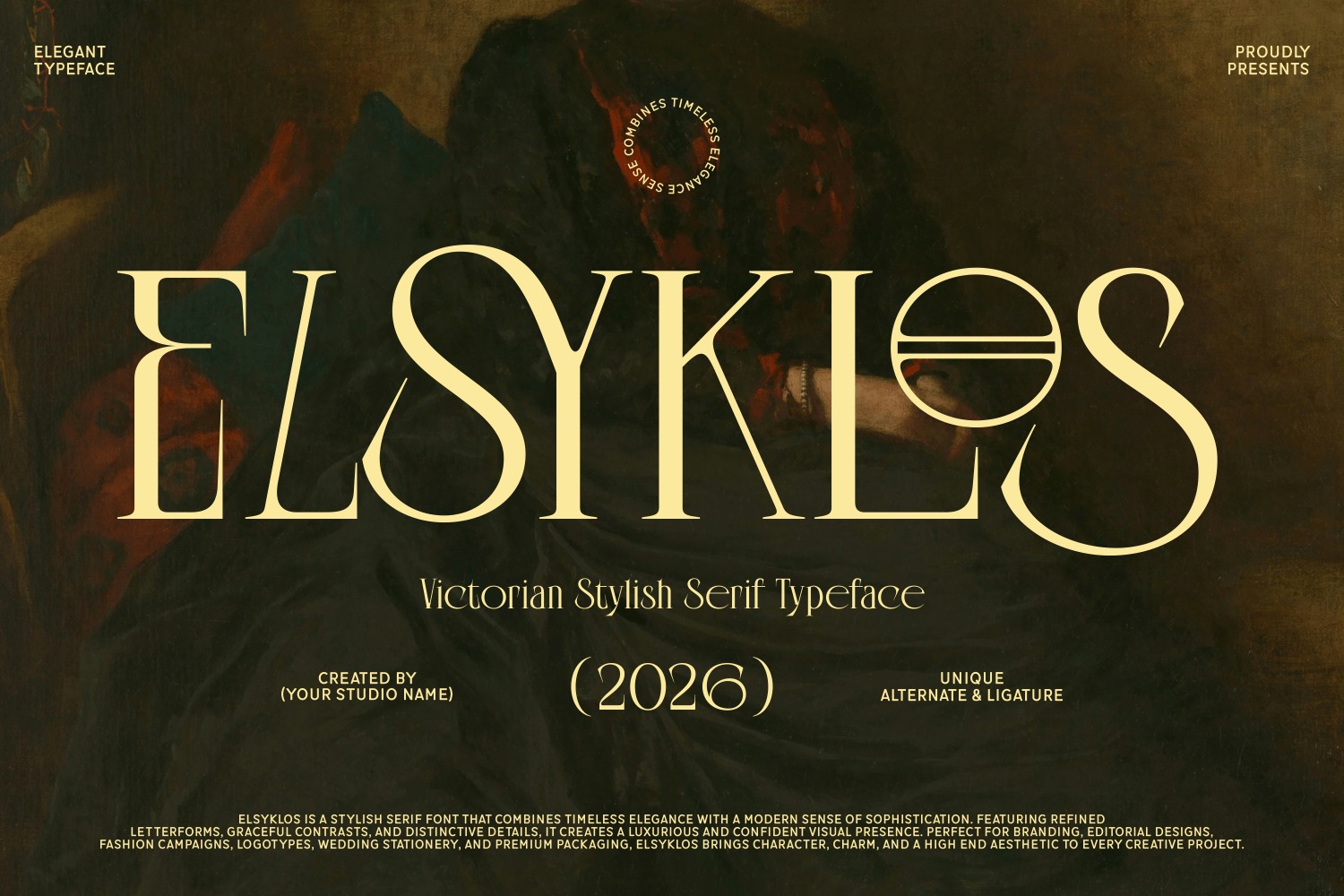
Elsyklos – Refined Serif Font
Elsyklos – Refined Serif Font is a versatile font designed to adapt beautifully across different design styles, offering dependable readability and balance. Elsyklos is a decorative display serif with a formal Victorian mood and strong contrast between thin hairlines and broad, curved strokes. Its letterforms mix tall vertical stems, sharp wedge-like serifs, rounded bowls, and flowing Art Nouveau-style curves, giving the alphabet a ceremonial rhythm.